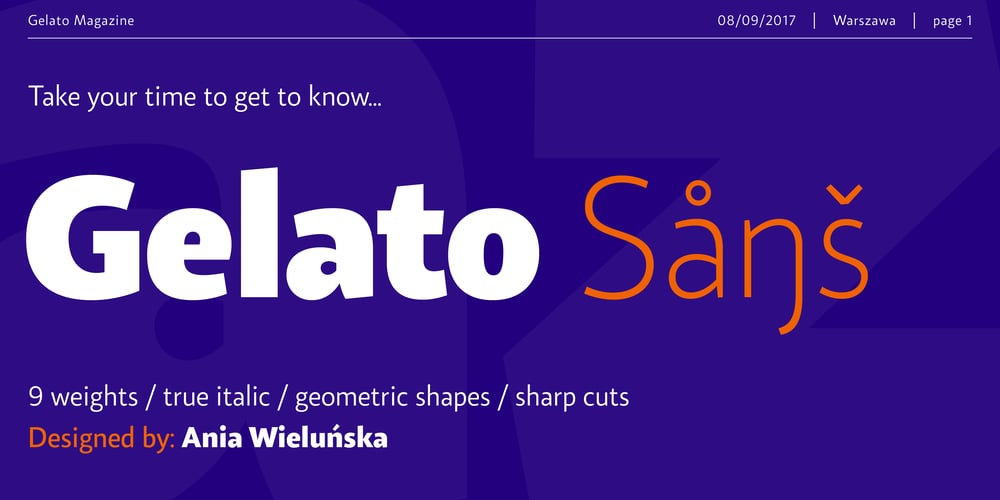
Gelato Sans Font Family was designed by Ania Wieluńska and published by Stolat Studio. Gelato Sans contains 15 styles and family package options. Gelato is the Italian word for ice cream, commonly used in English for ice cream made in an Italian style. Gelato Sans designed by Ania Wieluńska is a humanistic typeface with geometric construction. It is characterised by a lot of details, which gives it a friendly and warm character. Scalable and large x height, sharp cuts makes Gelato good choice for many purposes from textes to display usage. All family consist 18 styles with italics from hairline to black. Ania was awarded a TDC Beatrice Warde Scholarship for this type family.